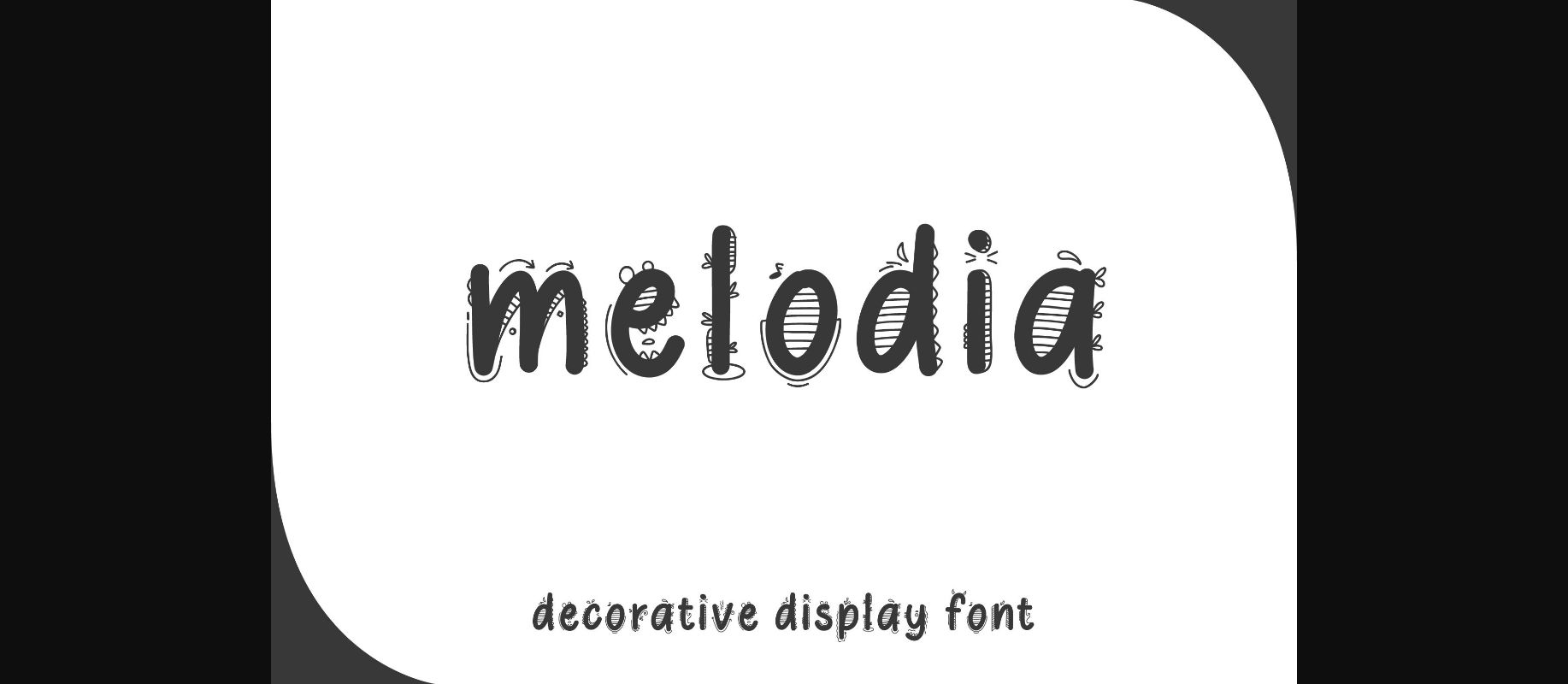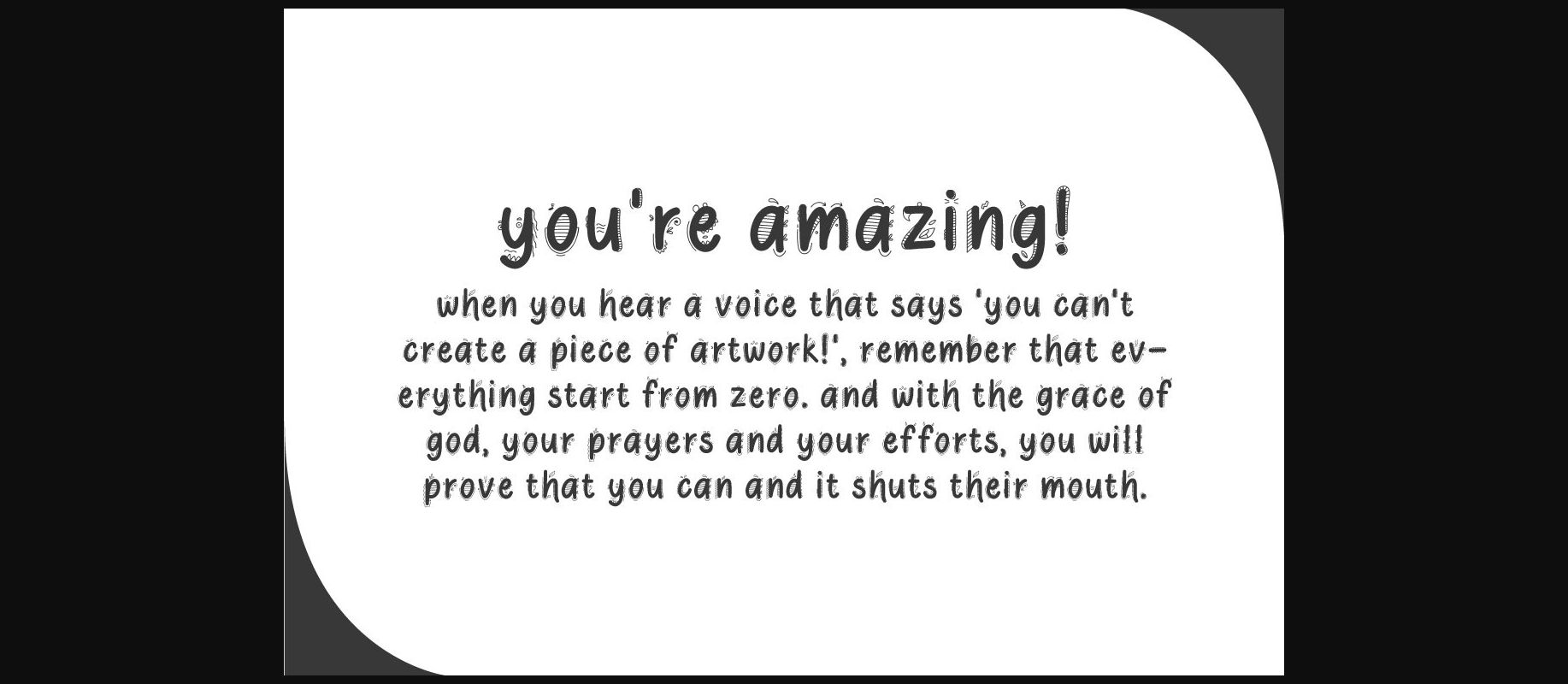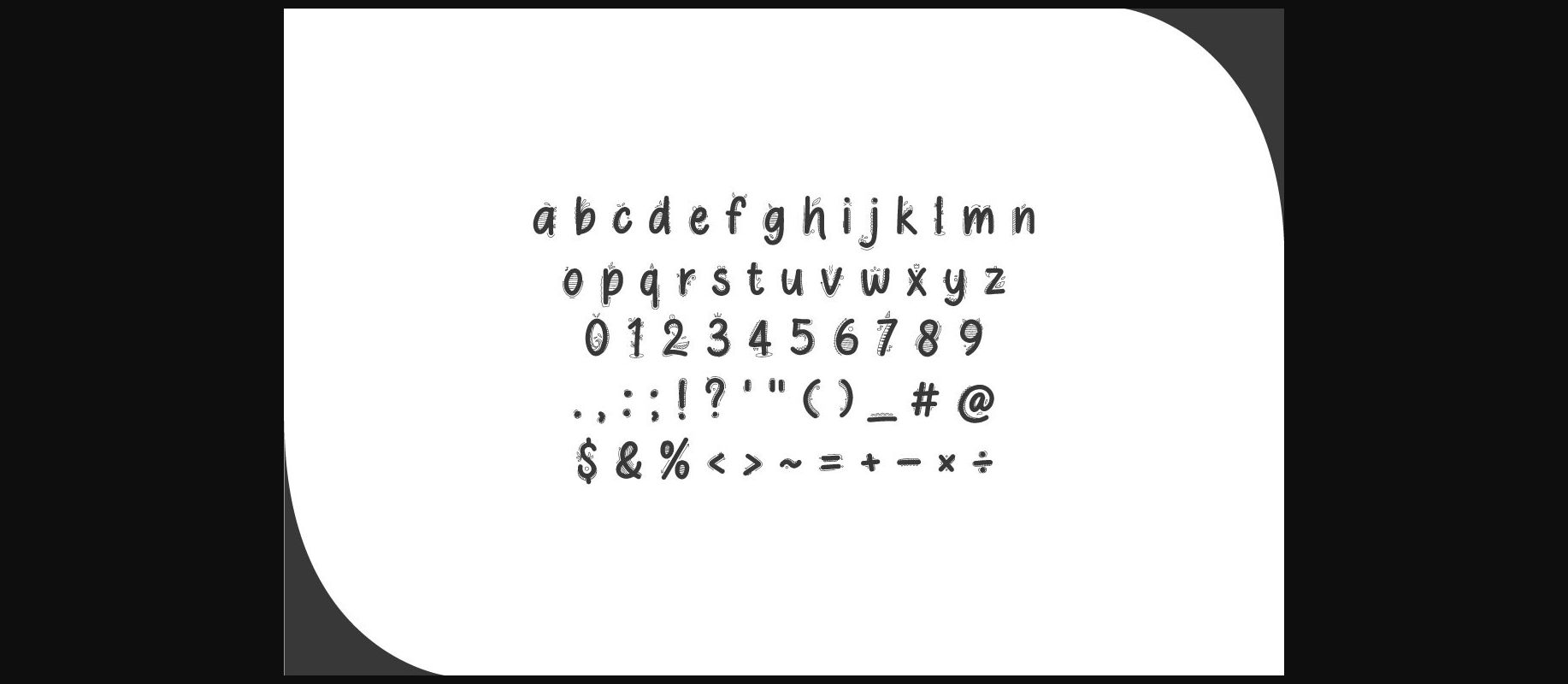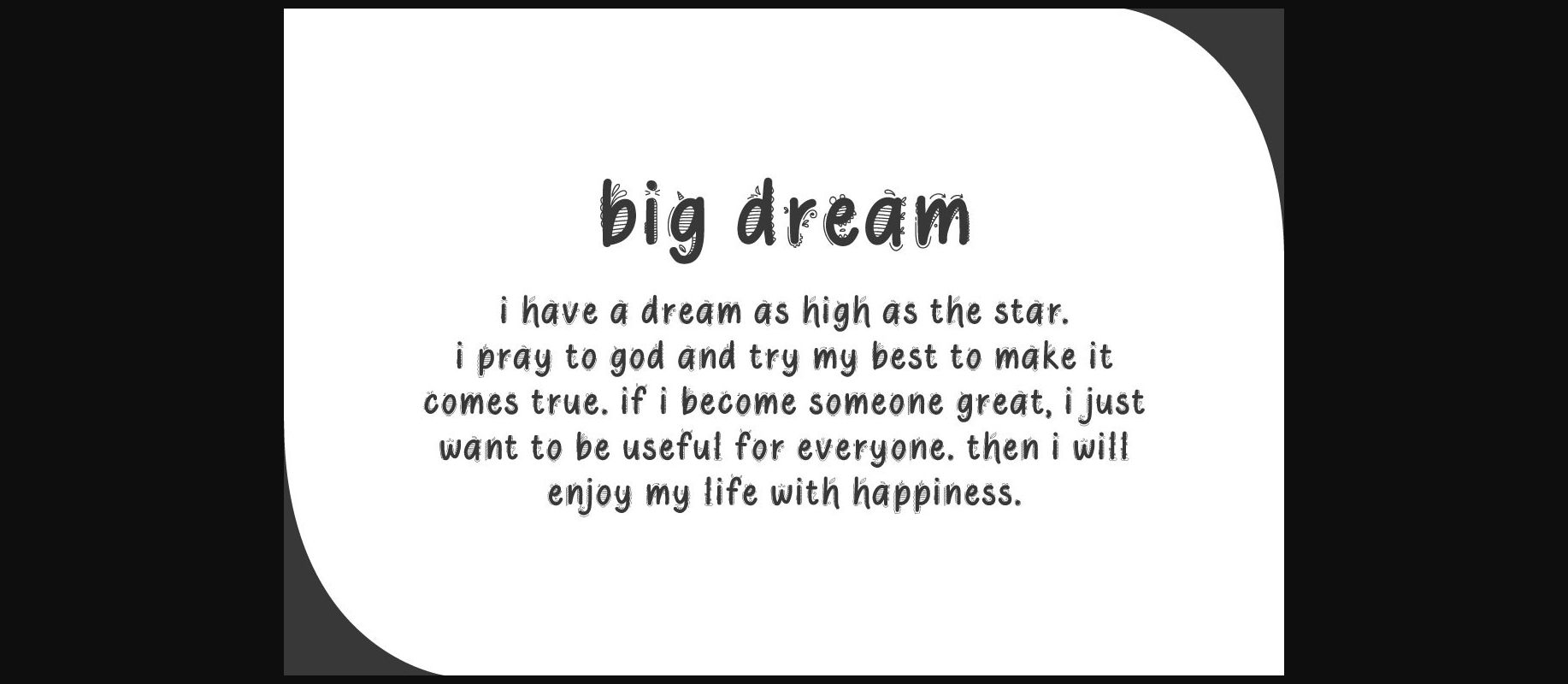
Melodia Font
About Melodia Font
Melodia is a fun and cheerful decorative font with unique ornamental elements. No matter the topic, this font will be an incredible asset to your fonts’ library, as it has the potential to elevate any creation.